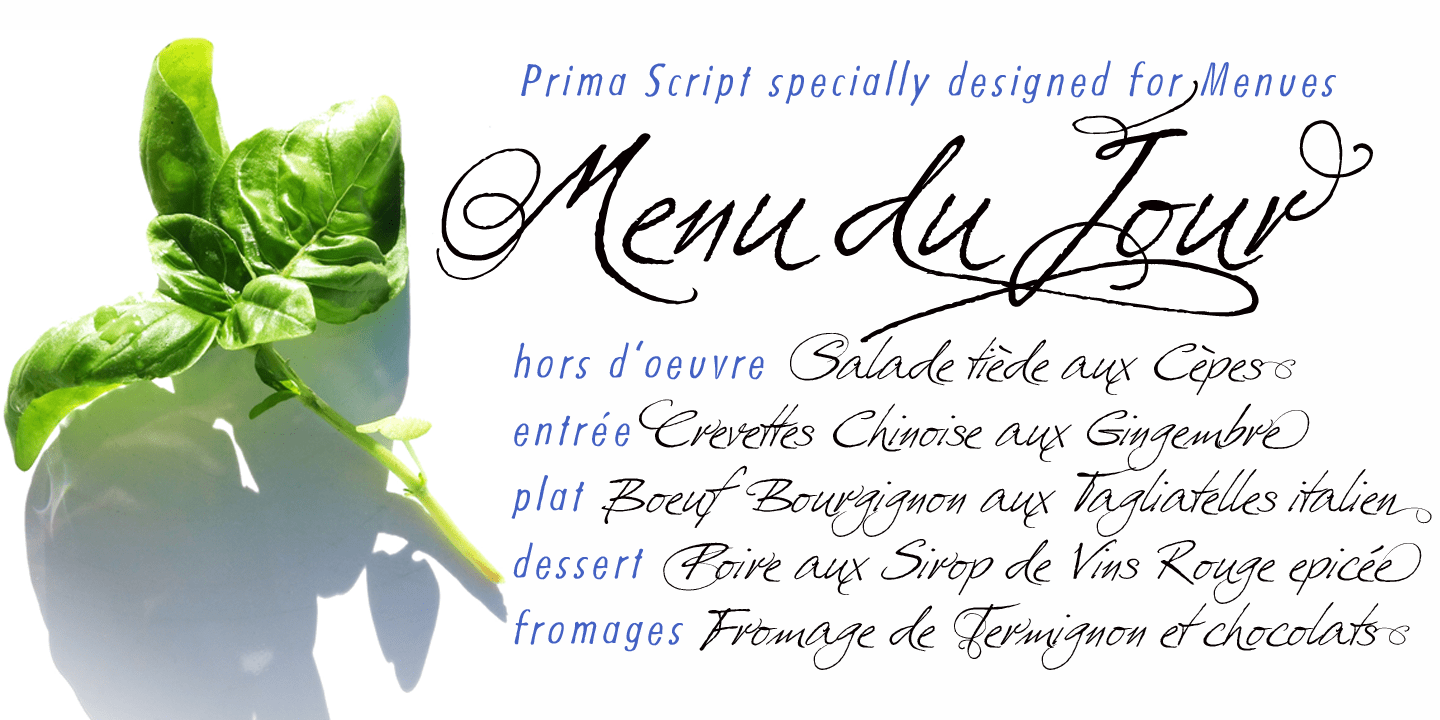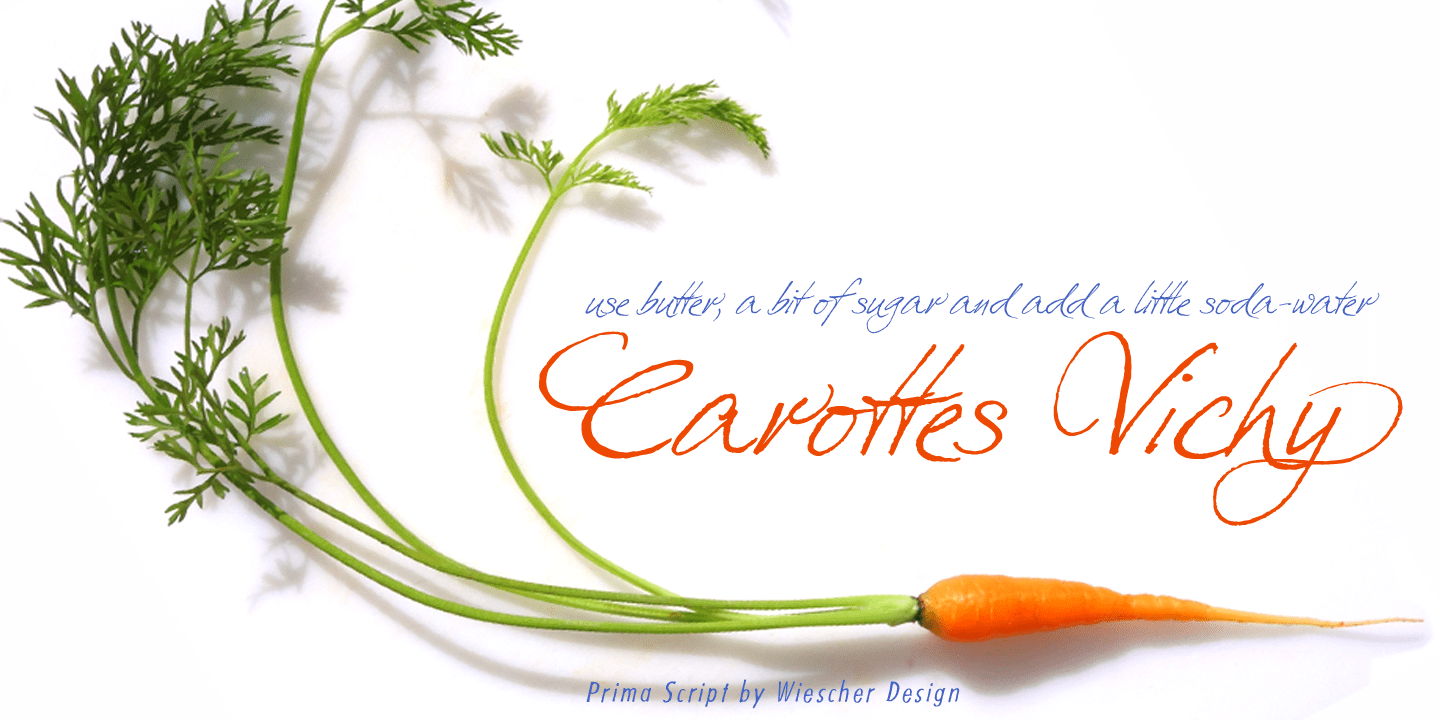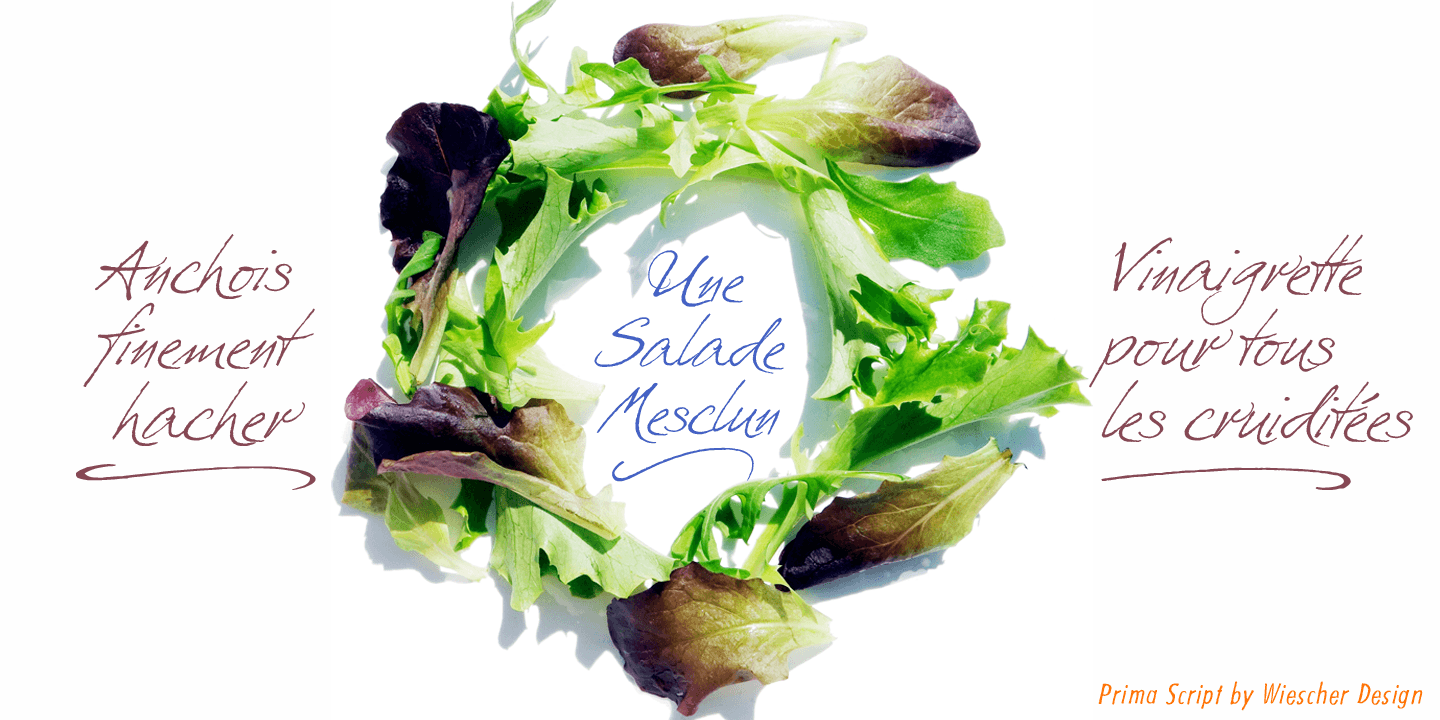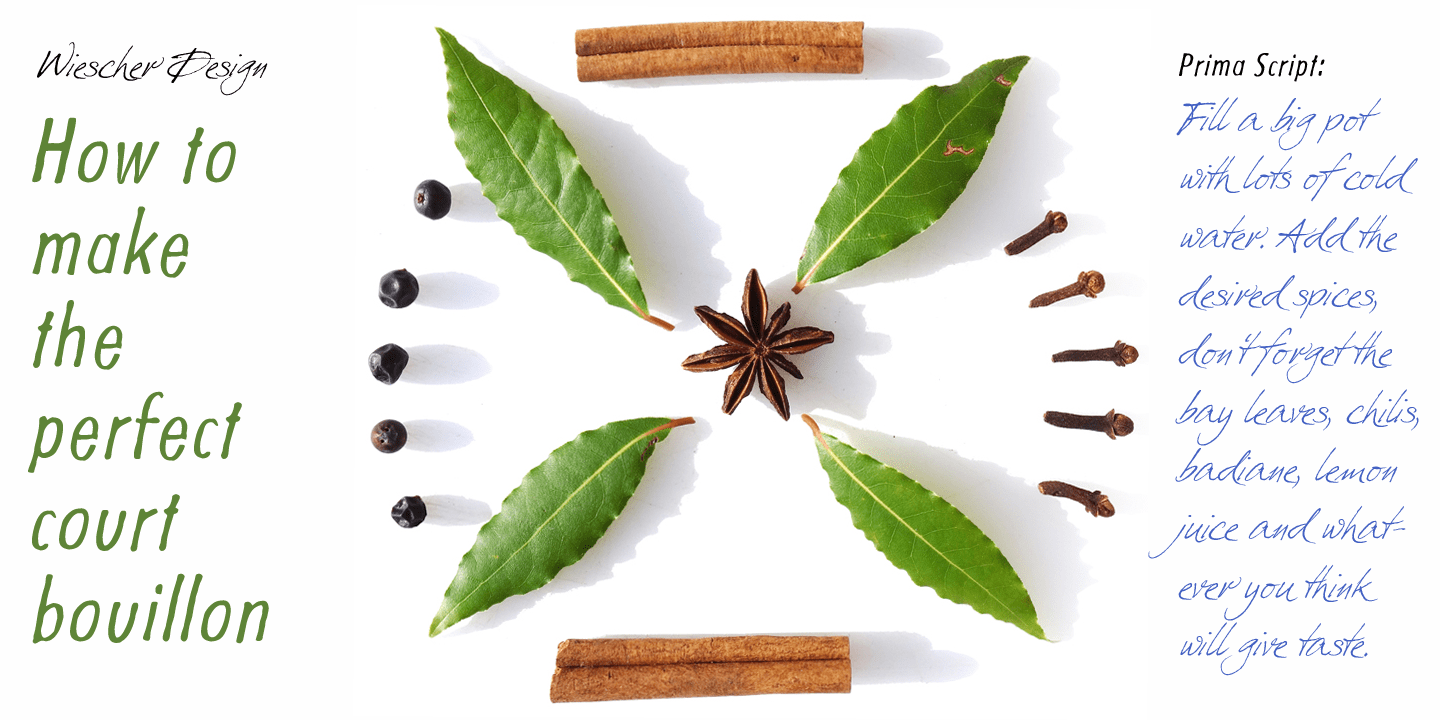
About Prima Script
Prima Script was designed especially for use in Menus and Cook-books. One of my sons is a chef in Munich and he was always bugging me to make a new font for his menus. I already designed one for him Konstantin but he likes to have new stuff every couple…